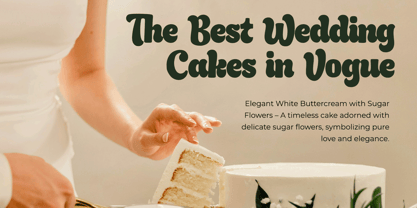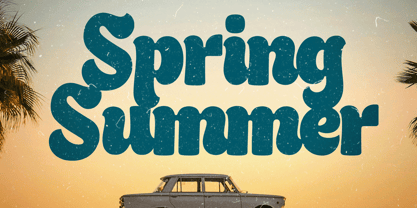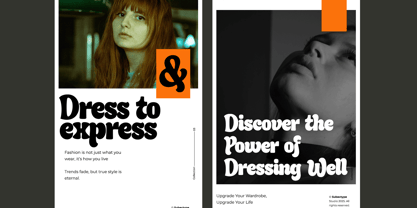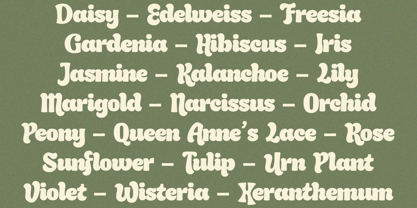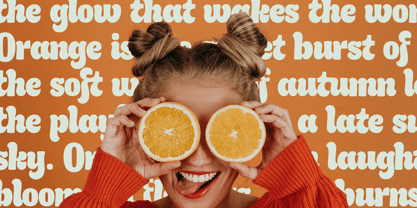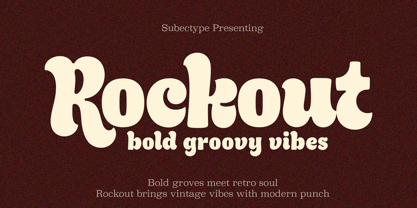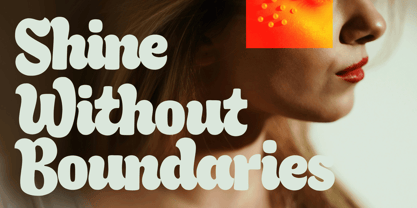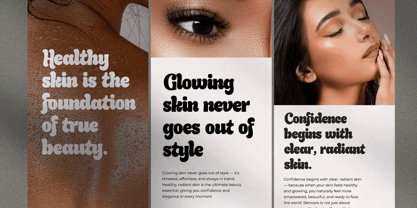
Rockout
by Subectype
The Rockout Font Family was designed by Rangga Subekti and published by Subectype. Rockout contains 1 styles.
Rockout is a Modern Retro Groove font. This font combines bold, eye catching strokes with a playful retro vibe, making it perfect for designs that demand attention. Its groovy curves and modern twist bring a sense of nostalgia while keeping your visuals fresh and trendy.
Ideal for posters, logos, packaging, and social media, this typeface effortlessly bridges the gap between vintage charm and contemporary style.
Designers: Rangga Subekti
Publisher: Subectype
Foundry: Subectype
Design Owner: Subectype